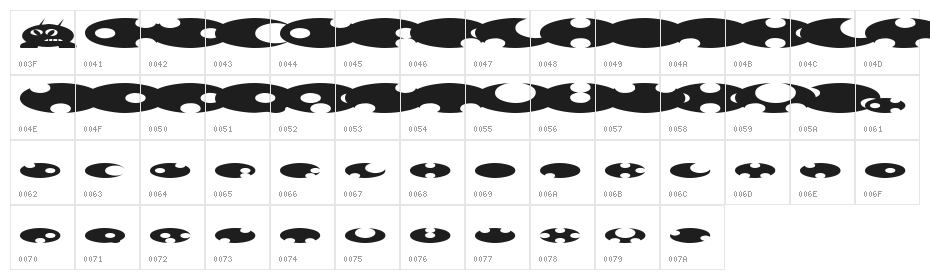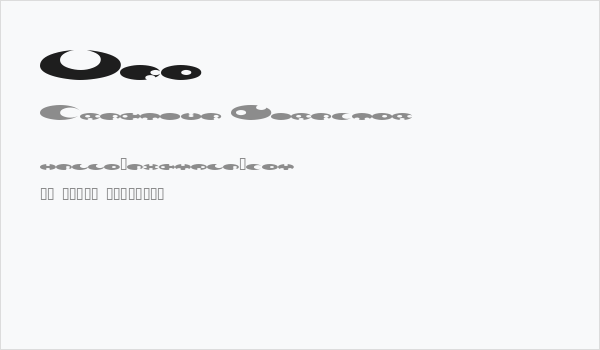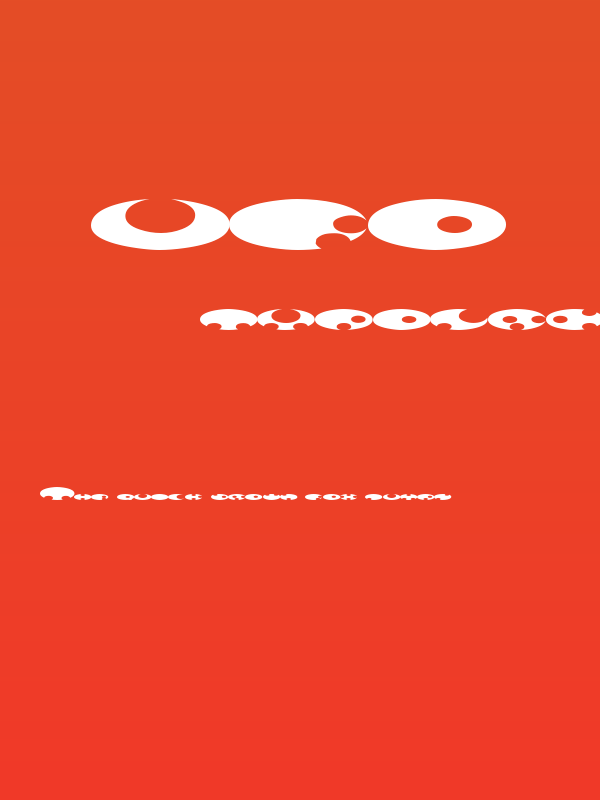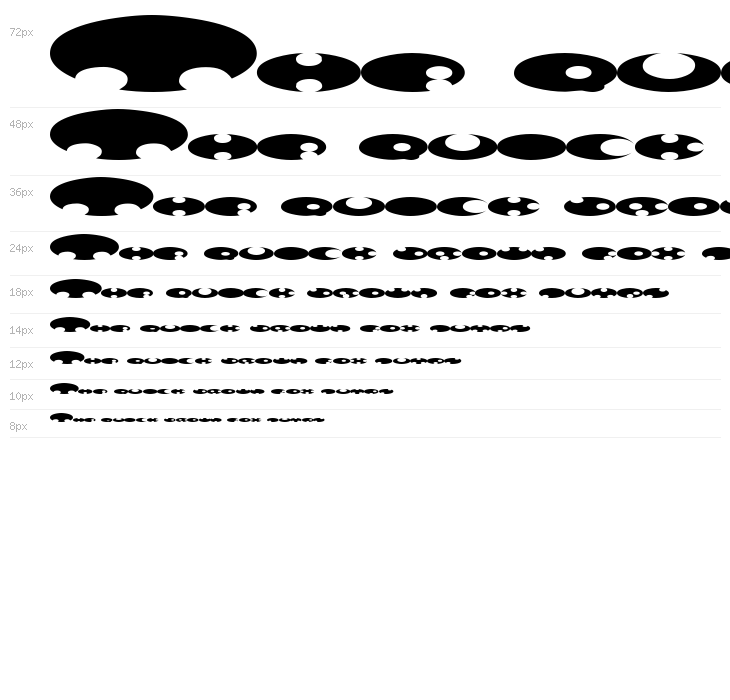
Ufo Font
Ufo Description
This font features a highly decorative and abstract design, reminiscent of alien or futuristic themes. The characters are composed of bold, solid shapes with unique cutouts and curves, creating an otherworldly appearance. Each letter is distinct, with a playful yet mysterious aesthetic that captures attention. The font's design is consistent across both uppercase and lowercase letters, as well as numbers and special characters, maintaining its thematic integrity. Its boldness and unique style make it suitable for projects that require a standout, unconventional look.
| Overall Style | Futuristic, Decorative |
| Proposed Projects | Ideal for sci-fi themed posters, video game titles, or any project needing a unique, standout typeface. |